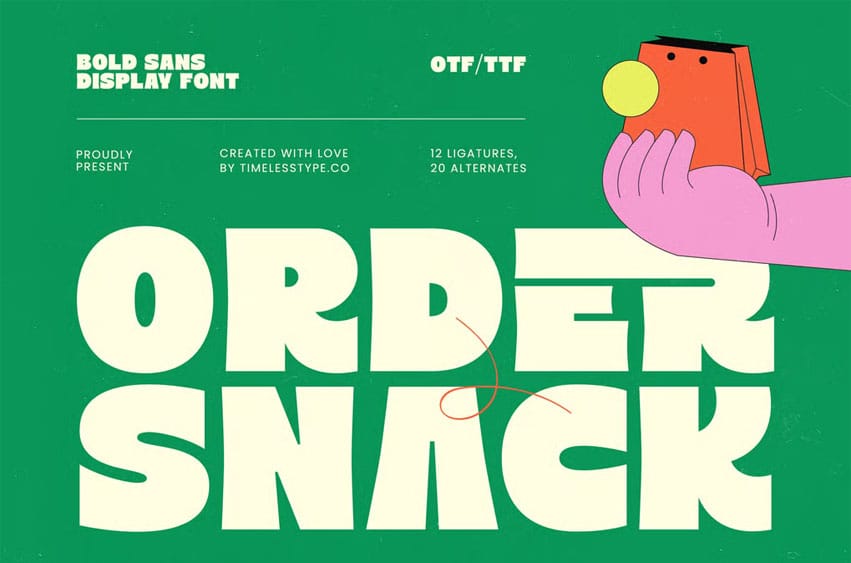
Order Snack Font is a bold sans display font designed for playful branding, packaging, fast-food ads, children’s products, quirky titles, and cheerful digital content. Its chunky shapes, soft curves, and friendly structure make every word feel lively and full of character. Whether you’re building a fun poster, a tasty menu header, or an eye-catching product label, this font delivers instant charm and expressive visual impact.
Packed with 12 ligatures and 20 alternates, Order Snack offers enough stylistic variety to keep your typography dynamic, bold, and attention-grabbing. Perfect for both professional creatives and fun commercial projects.